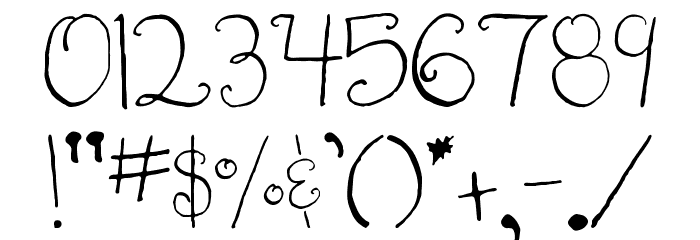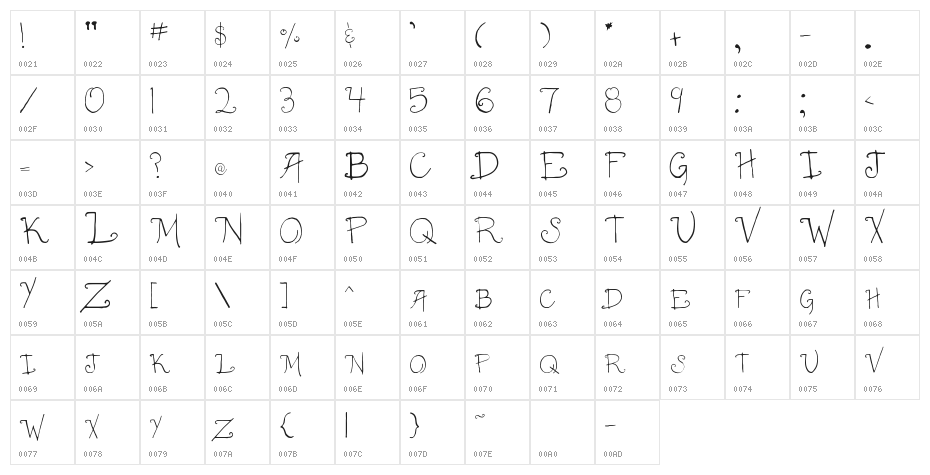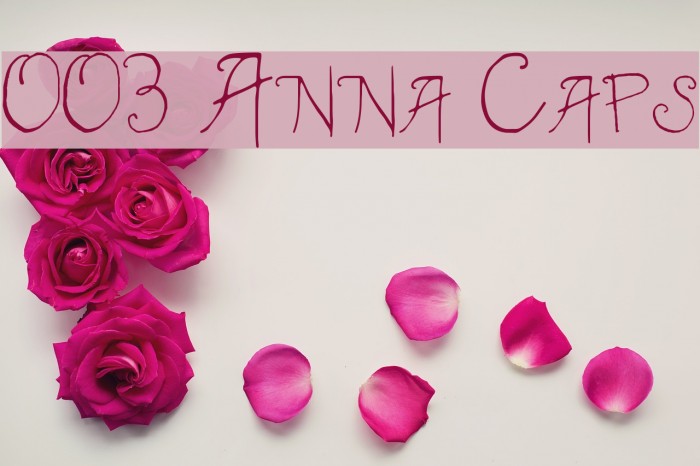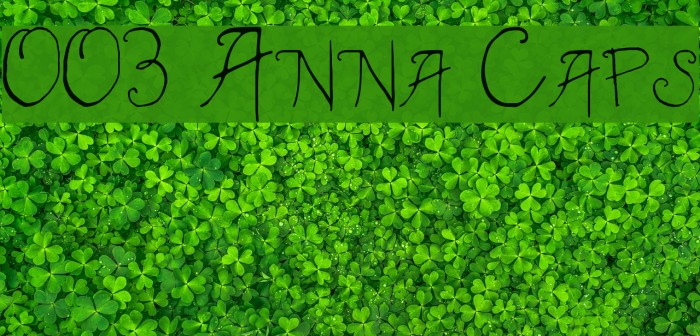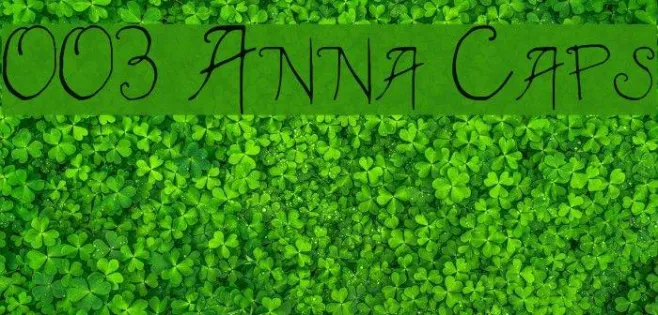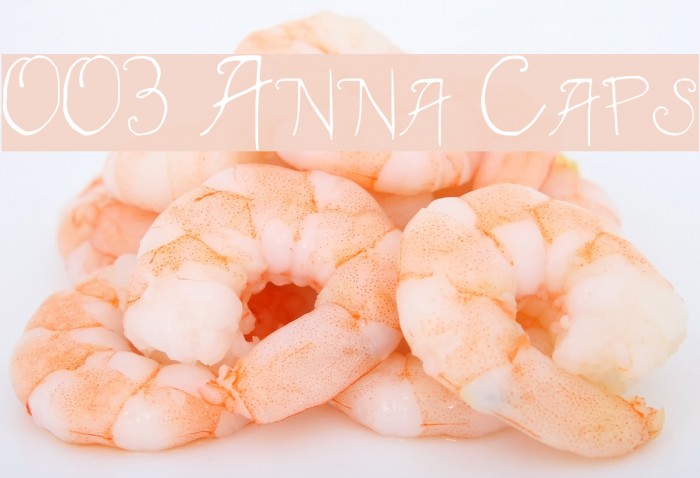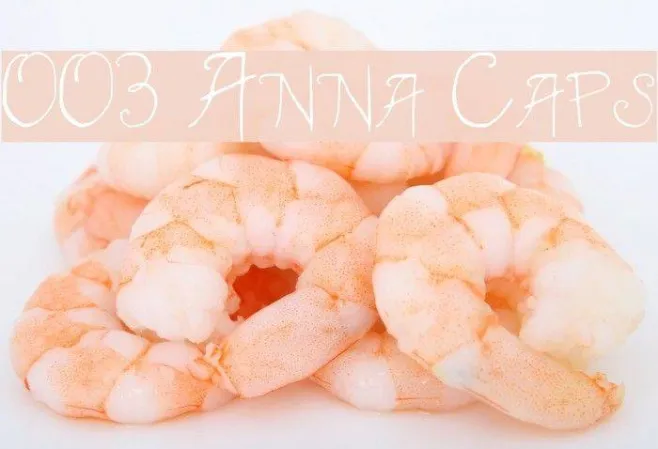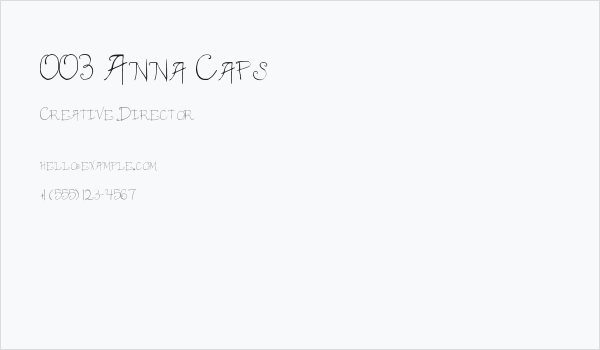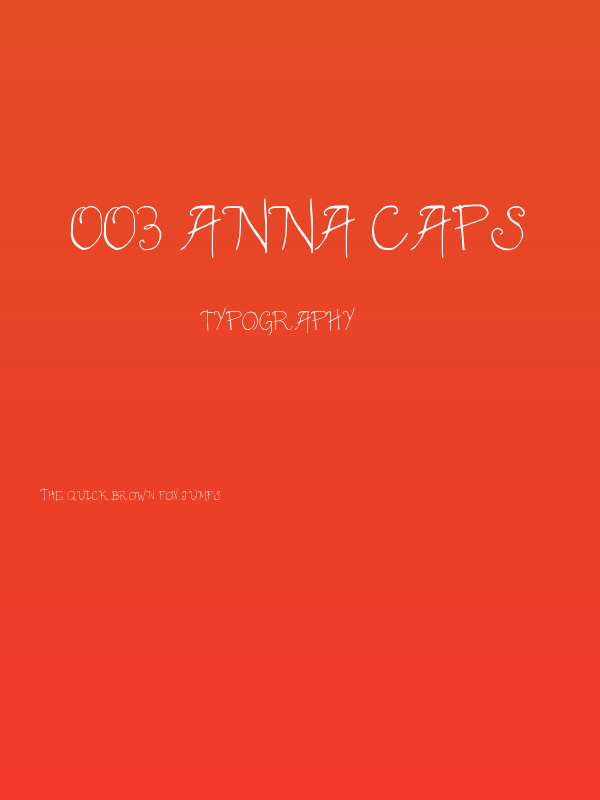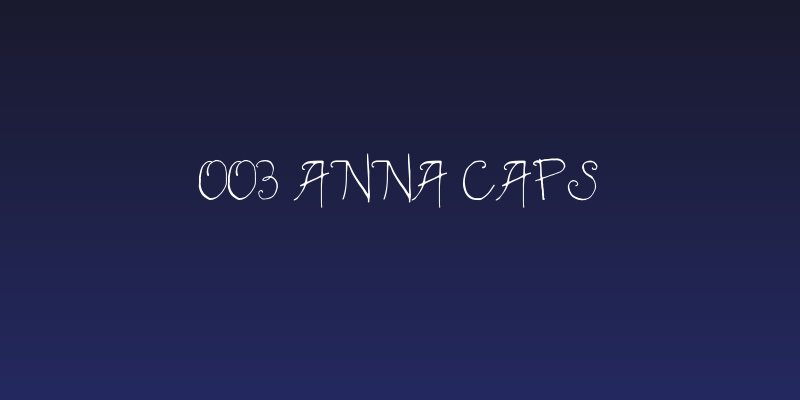
003 Anna Caps Font
003 Anna Caps Description
This font features a whimsical and playful design, characterized by its hand-drawn appearance. The letters have a unique, slightly irregular form, with varying stroke thickness that adds to its charm. The uppercase and lowercase letters maintain a consistent style, with decorative elements such as loops and swirls that enhance its artistic flair. The numbers and special characters follow the same playful theme, making the font suitable for creative projects. Its overall look is reminiscent of a handwritten script, yet it maintains a level of readability that makes it versatile for various uses.
| Proposed Projects | Ideal for greeting cards, children's books, playful branding, and artistic posters. |